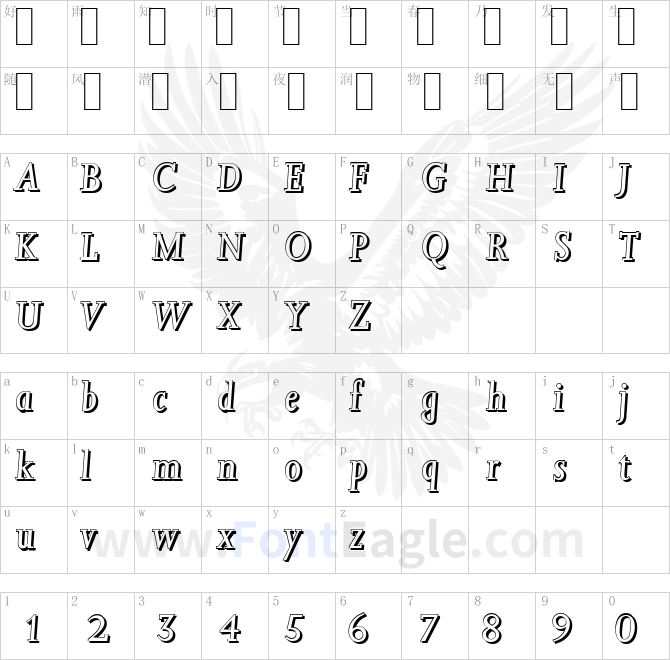
- Font name:JessicaShadow
- Font Subfamily ID:SoftMaker Software GmbH JessicaShadow-Italic
- Font Full Name:JessicaShadow-Italic
- Postscript:JessicaShadowItalic